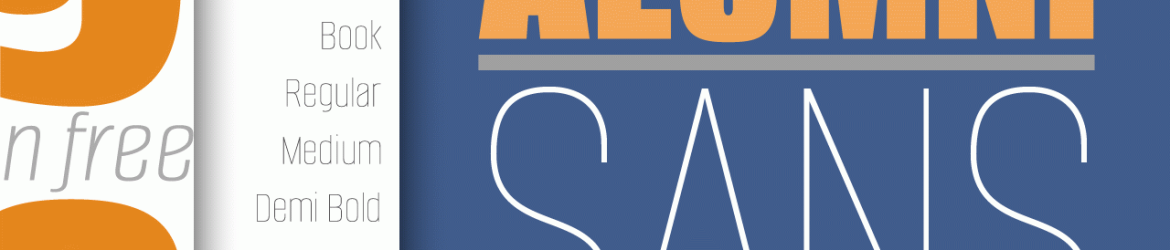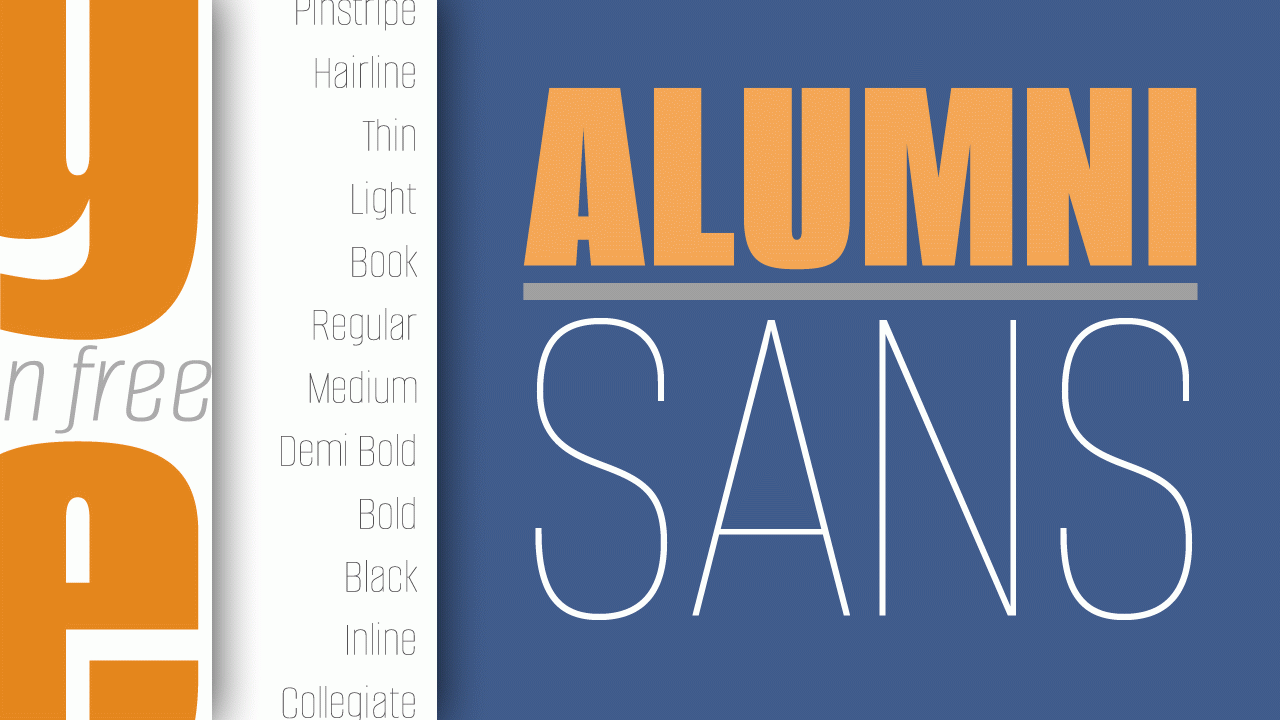
Download Alumni typeface, a sans serif font family, originally inspired by the black face Impact™. A true departure from present trends, Alumni font resurrects the clean and simple forms made popular in the 1950s.